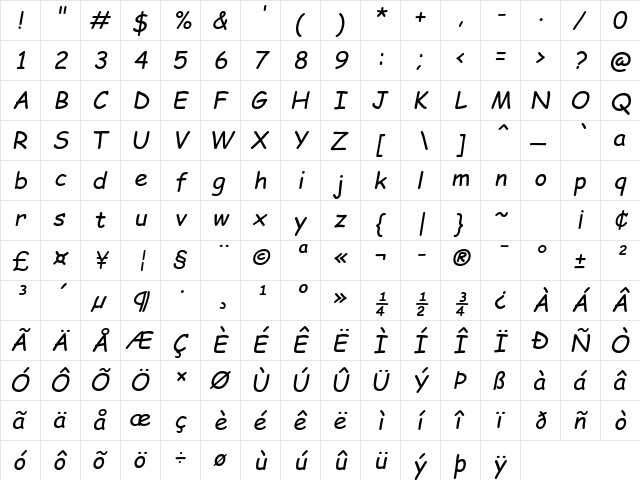
Comic Sans MS Italic
| Foundry | Microsoft Corporation |
| Designer | Vincent Connare, Terrance Weinzierl |
Design Context for Comic Sans MS Typeface
Comic Sans MS has an approachable, lighthearted character — its loose, expressive forms are well-suited to children's content, casual branding, and fun-first design. The slanted form adds forward momentum and visual energy.
Great for children's books, toy packaging, family event branding, and casual consumer-facing design.
Font Pairing: Pairs well with a rounded or humanist sans for body copy, maintaining the friendly tone without relying on Comic Sans MS to carry extended reading.
Pro Tip: Avoid using Comic Sans MS for long passages of text — it works best for headlines, labels, and short calls to action.